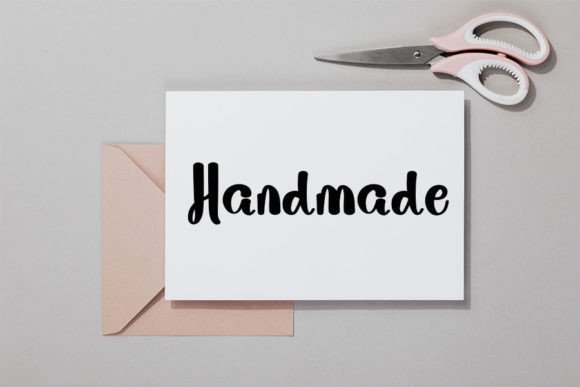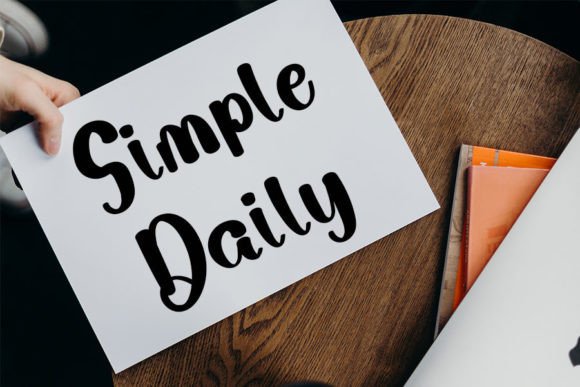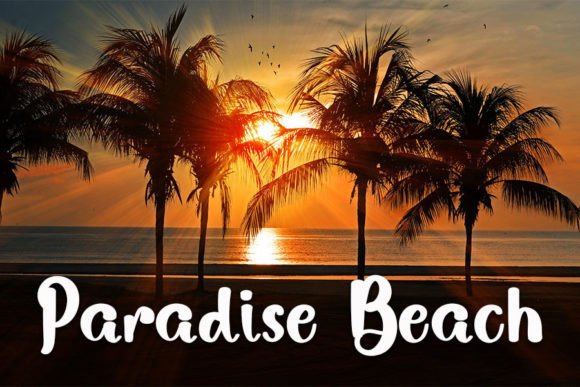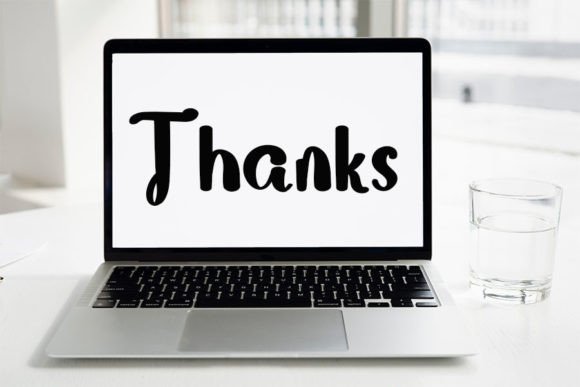
Introducing Happy Fishing Font: The Perfect Blend of Elegance and Whimsy
Are you a designer, crafter, or DIY enthusiast looking for a unique and captivating font to elevate your projects? Look no further than Happy Fishing Font, a magical handwritten font that combines elegance and quirkiness. In this article, we’ll dive into the world of Happy Fishing Font, exploring its features, benefits, and uses, and why it’s the perfect fit for your logos, branding, social media, and crafty DIY projects.
The Story Behind Happy Fishing Font
Happy Fishing Font is a carefully crafted handwritten font, designed to bring a touch of elegance and playfulness to your designs. Its creator aimed to develop a font that would be both clean and quirky, making it versatile enough to be used in various projects. Whether you’re designing a logo, creating social media graphics, or working on a crafty DIY project, Happy Fishing Font is sure to make your designs stand out.
Key Features of Happy Fishing Font
- Handwritten with love: Happy Fishing Font is a handwritten font, carefully crafted to bring a personal touch to your designs.
- Elegant and quirky: This font combines elegance and whimsy, making it perfect for a wide range of projects.
- Clean and legible: Despite its playful nature, Happy Fishing Font remains clean and legible, ensuring your message is conveyed clearly.
- Versatile: This font is suitable for various projects, including logos, branding, social media graphics, and crafty DIY projects.
Benefits of Using Happy Fishing Font
So, why choose Happy Fishing Font for your projects? Here are just a few benefits:
- Unique and eye-catching: Happy Fishing Font is sure to grab attention and make your designs stand out from the crowd.
- Emotional connection: The handwritten nature of this font creates an emotional connection with your audience, making your message more relatable and personal.
- Flexibility: Happy Fishing Font can be used in a variety of contexts, from formal to informal, and can be easily paired with other fonts to create a unique look.
Happy Fishing Font is an excellent choice for designers and crafters looking to add a personal touch to their projects. Whether you’re creating:
- Logos and branding: Use Happy Fishing Font to create a unique and memorable brand identity.
- Social media graphics: Add a touch of personality to your social media posts and stories with this eye-catching font.
- Crafty DIY projects: Happy Fishing Font is perfect for handmade cards, gift tags, and other crafty projects that require a personal touch.
Tips for Using Happy Fishing Font
To get the most out of Happy Fishing Font, here are a few tips:
- Experiment with colors: Pair Happy Fishing Font with bright and bold colors to create a playful look or with pastel colors for a softer, more elegant feel.
- Mix and match: Combine Happy Fishing Font with other fonts to create a unique and interesting look.
- Pay attention to spacing: Make sure to adjust the spacing between letters and words to ensure your text is easy to read.
In conclusion, Happy Fishing Font is a magical handwritten font that combines elegance and whimsy, making it perfect for a wide range of projects. Its unique and eye-catching design, emotional connection, and flexibility make it an excellent choice for designers, crafters, and DIY enthusiasts. Whether you’re creating logos, social media graphics, or crafty DIY projects, Happy Fishing Font is sure to bring a touch of personality and charm to your designs.